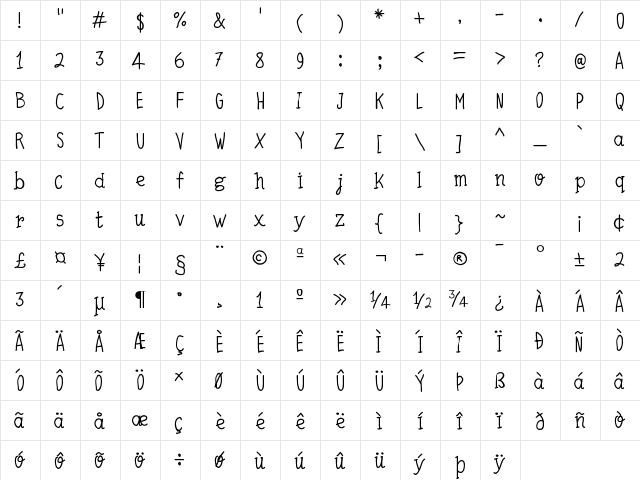
Quick Writing Regular
| Foundry | Galdino Otten |
| Designer | 頇aldino Otten |
Design Context for Quick Writing Typeface
Quick Writing takes a measured approach to typography — its balanced proportions and neutral character make it a reliable workhorse for both digital and print work.